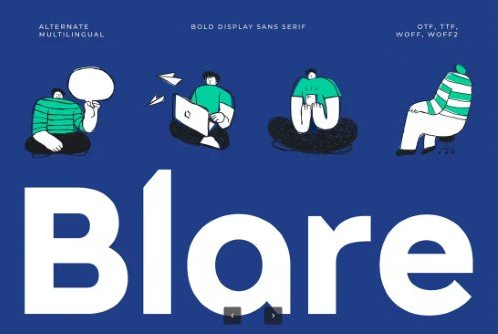
Blare Bold Display Font
Blare bold display font is a unique, modern luxury font with a luxury, elegant, aesthetic and geometric style. It is a display font perfect for branding projects, logos, social media posts, product packaging, labels, etc. What’s included Blare bold display Fonts (otf, ttf, woff, woff2) Character Set Uppercase and Lowercase Numeral and Punctuation